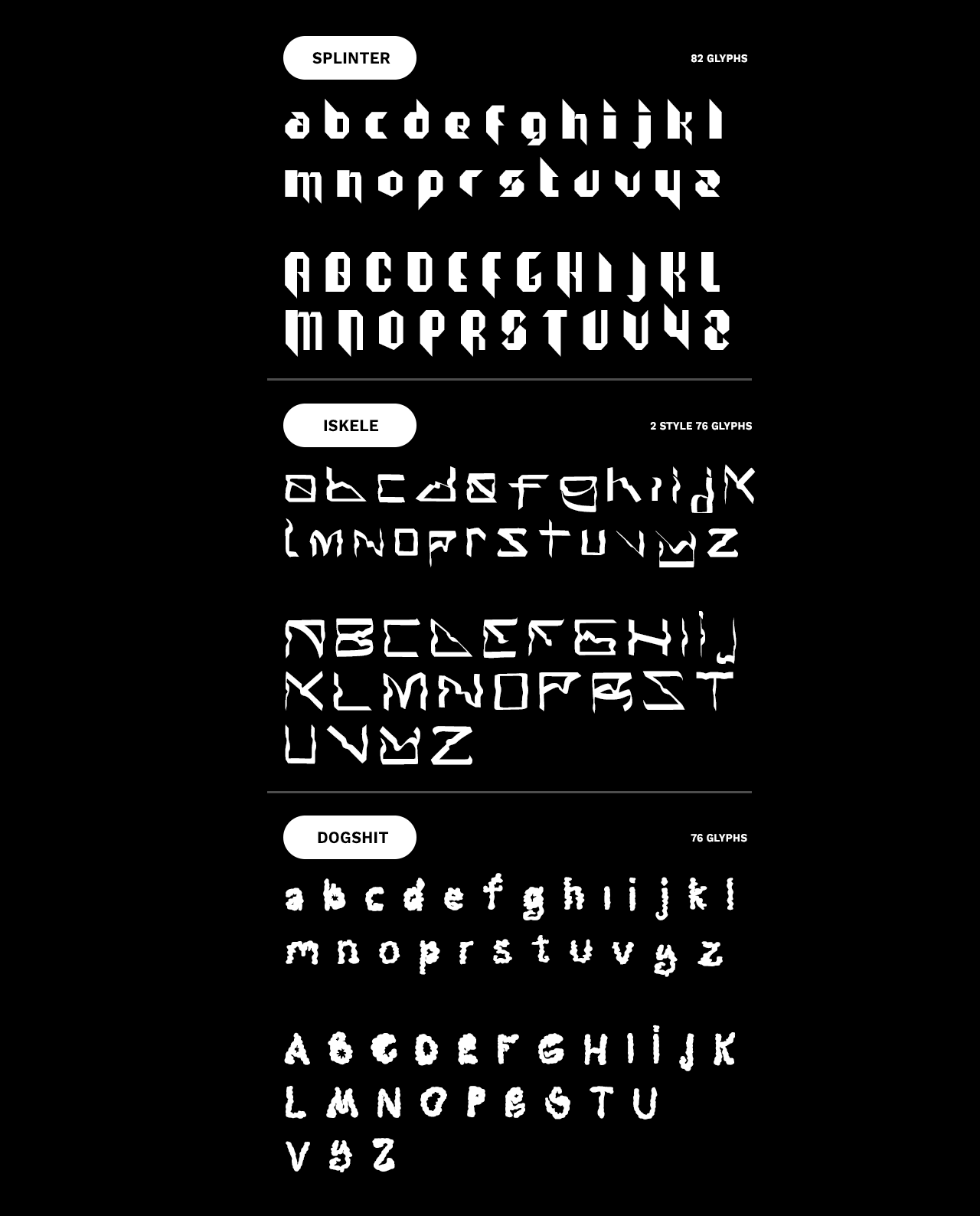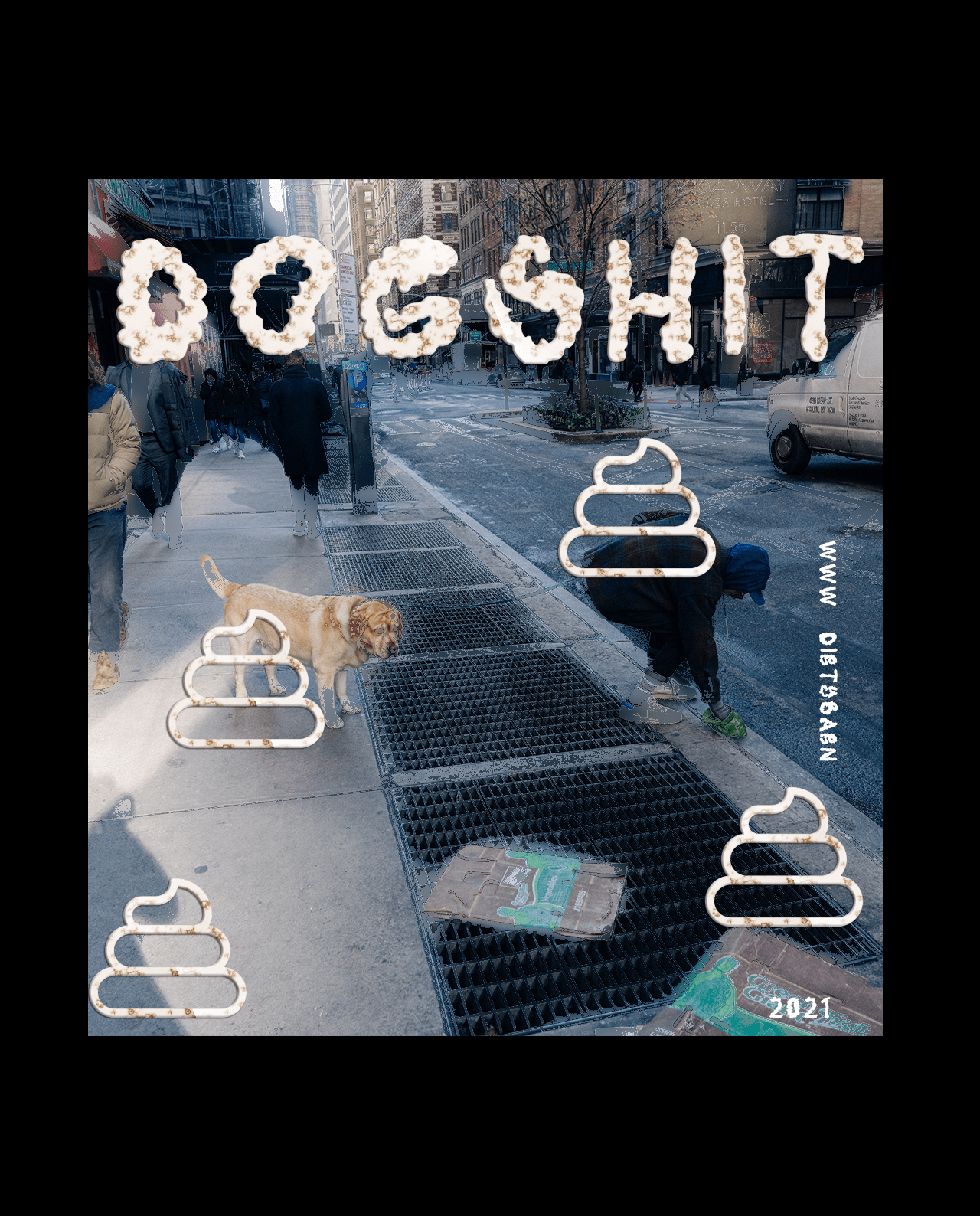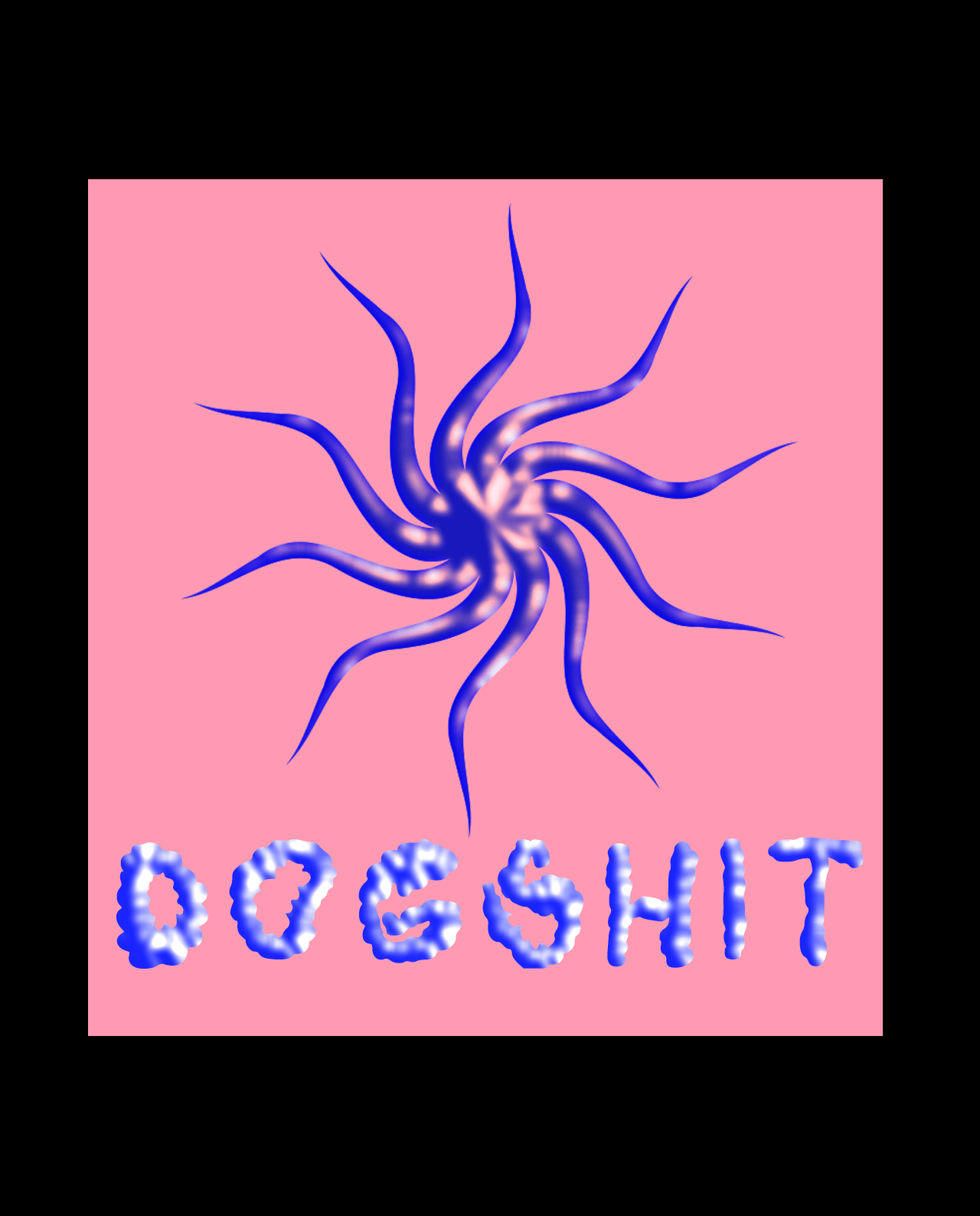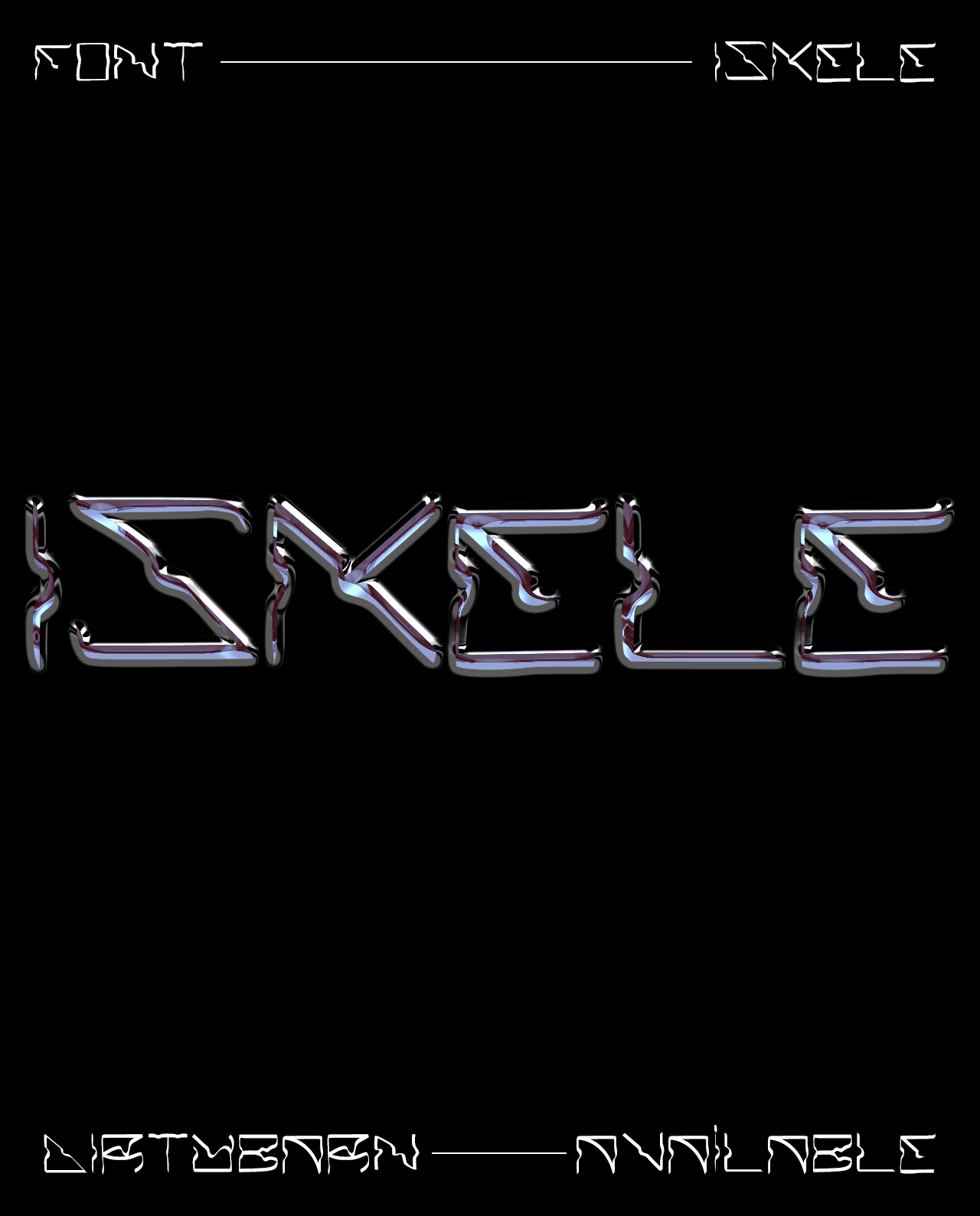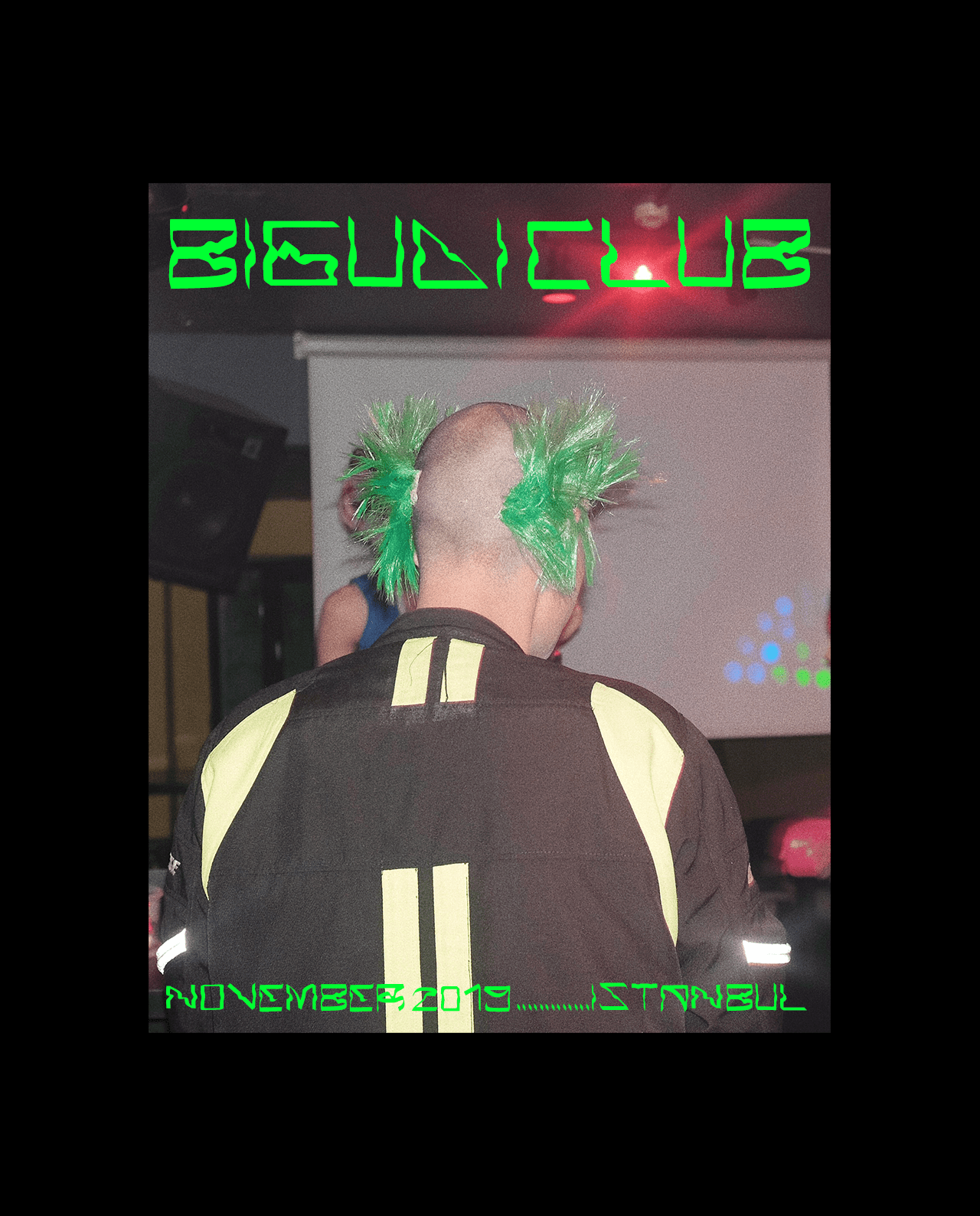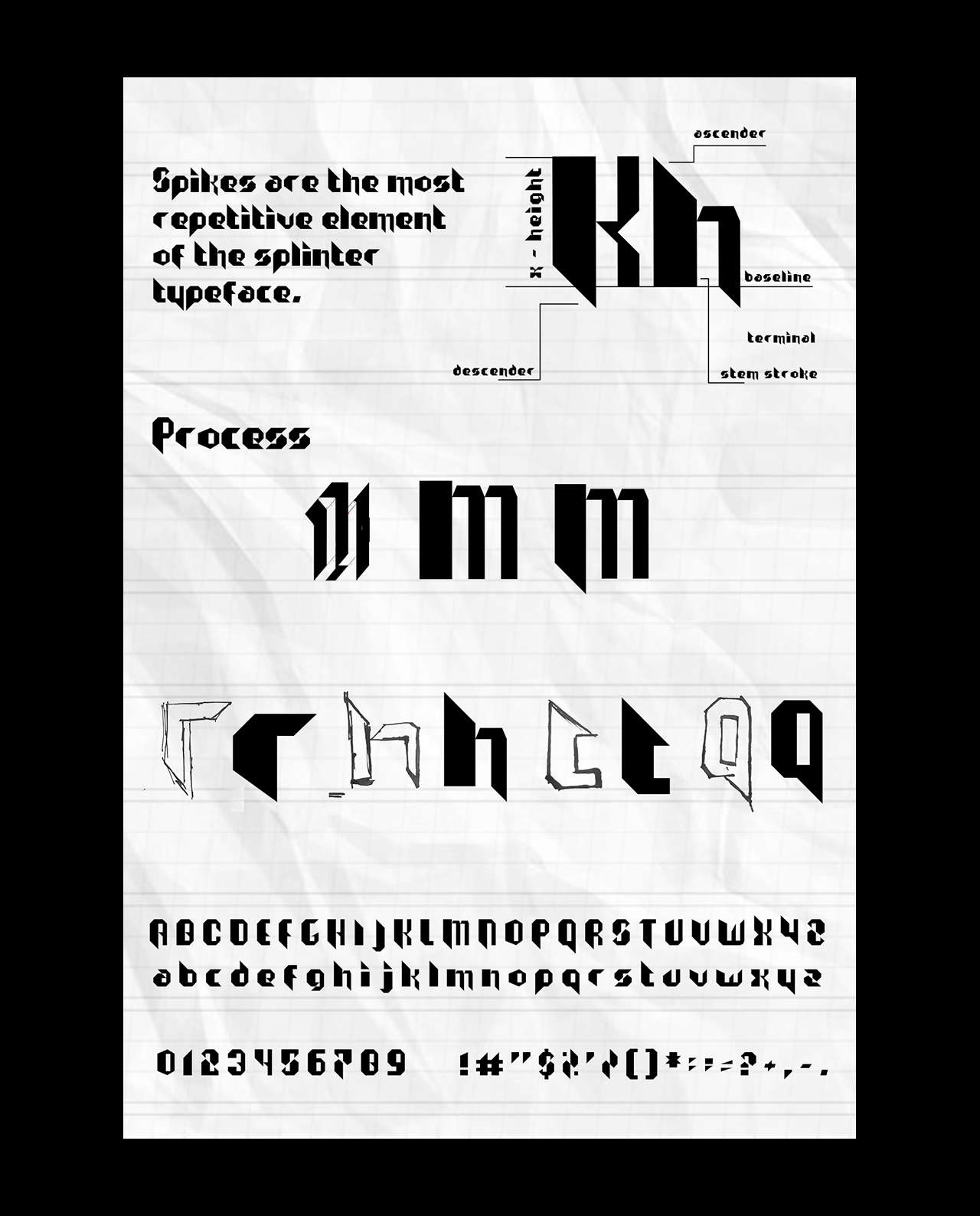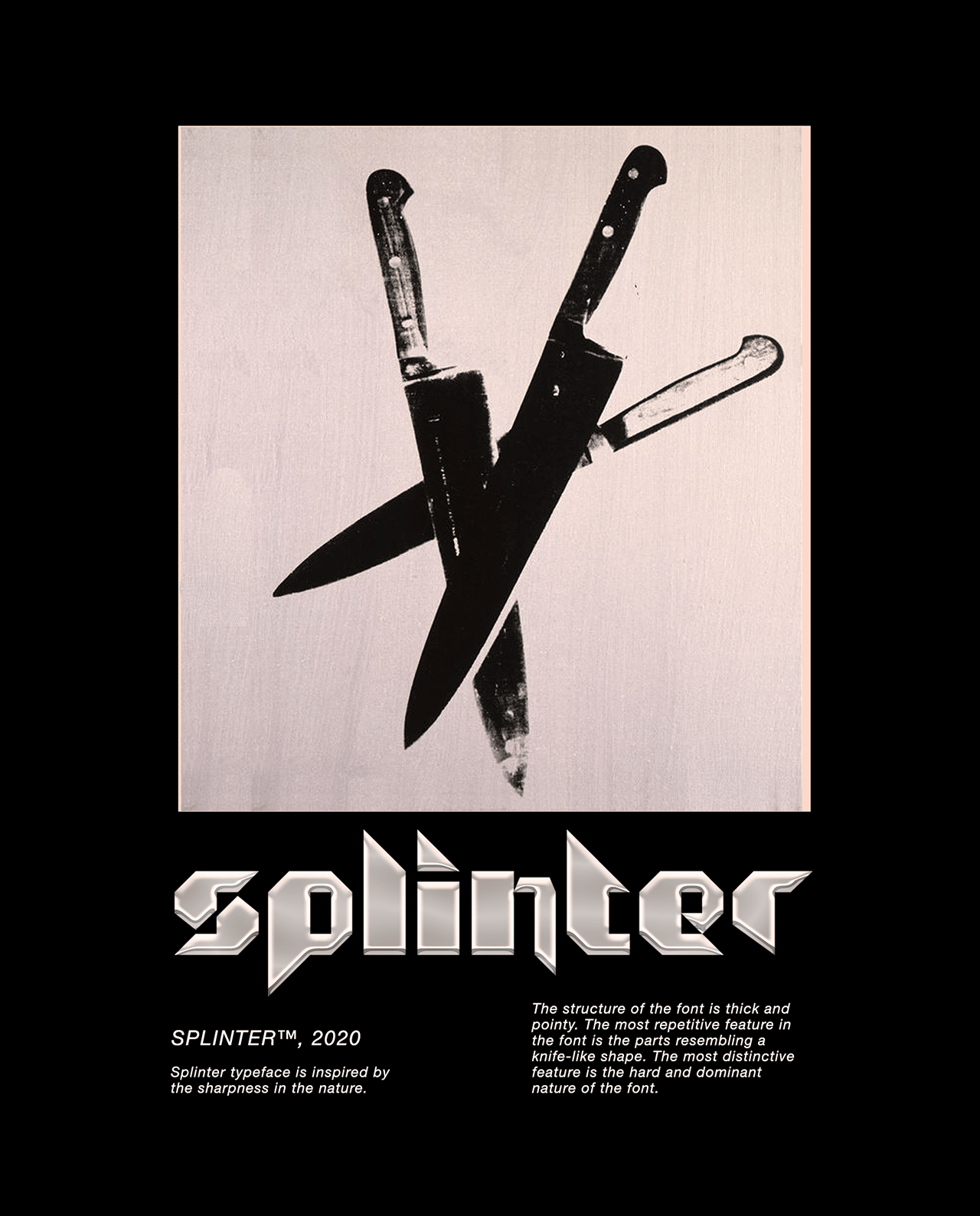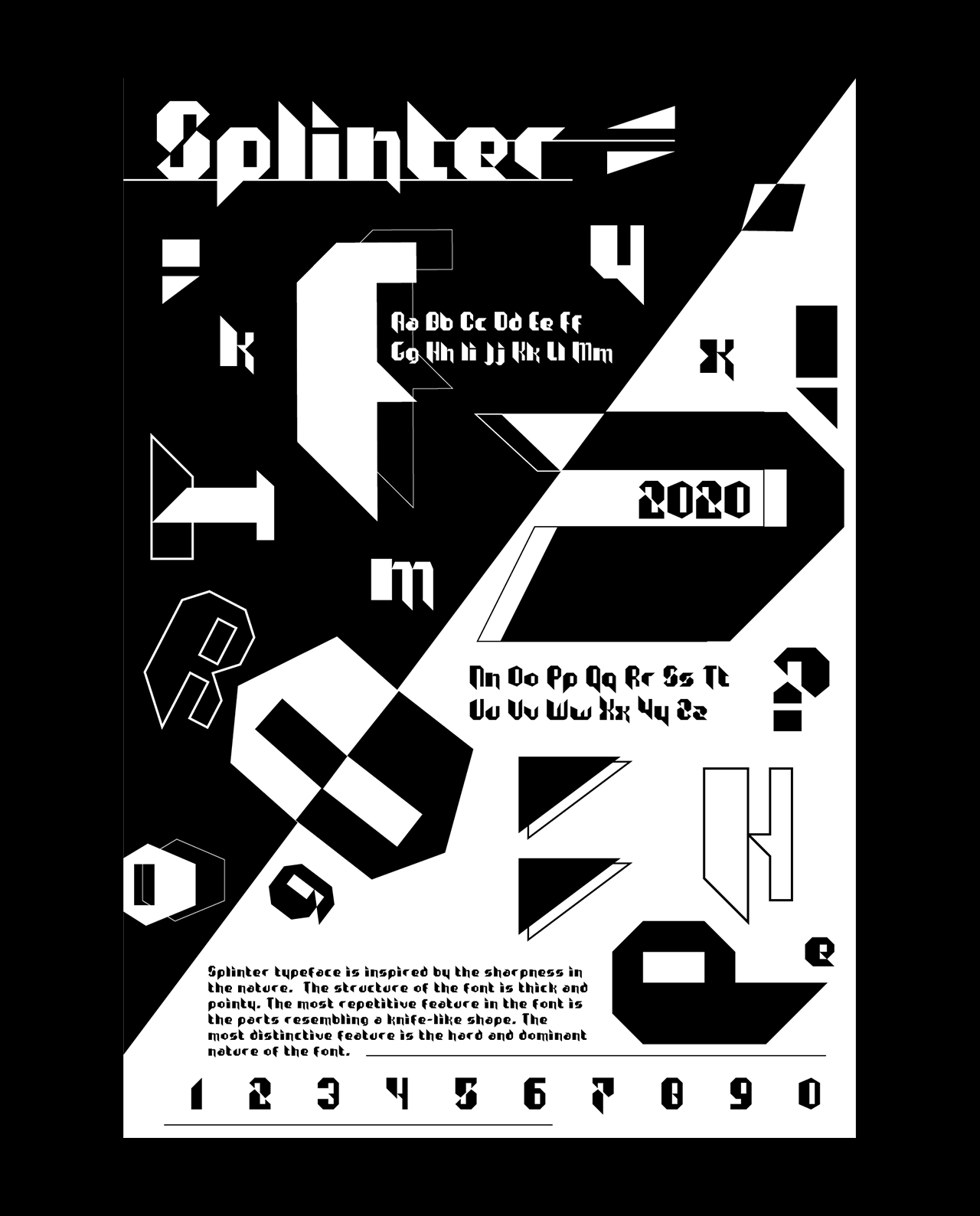
3 fonts: Splinter, Dogshit, Iskele
There are 3 different fonts in this collection. Splinter is sharp-edged, Dogshit is soft, and Iskele is in between.
Splinter font is inspired by the sharpness in nature. The structure of the font is thick and pointy. The most repetitive feature in the font is the parts resembling a knife-like shape.
Dogshit font is obviously inspired by the dog poop. It’s definitely organic so feel free to use it in your designs.
Iskele font is inspired by scaffoldings – also a street name in Turkey – The structure of the font is a bit calligraphic-like and wavy.